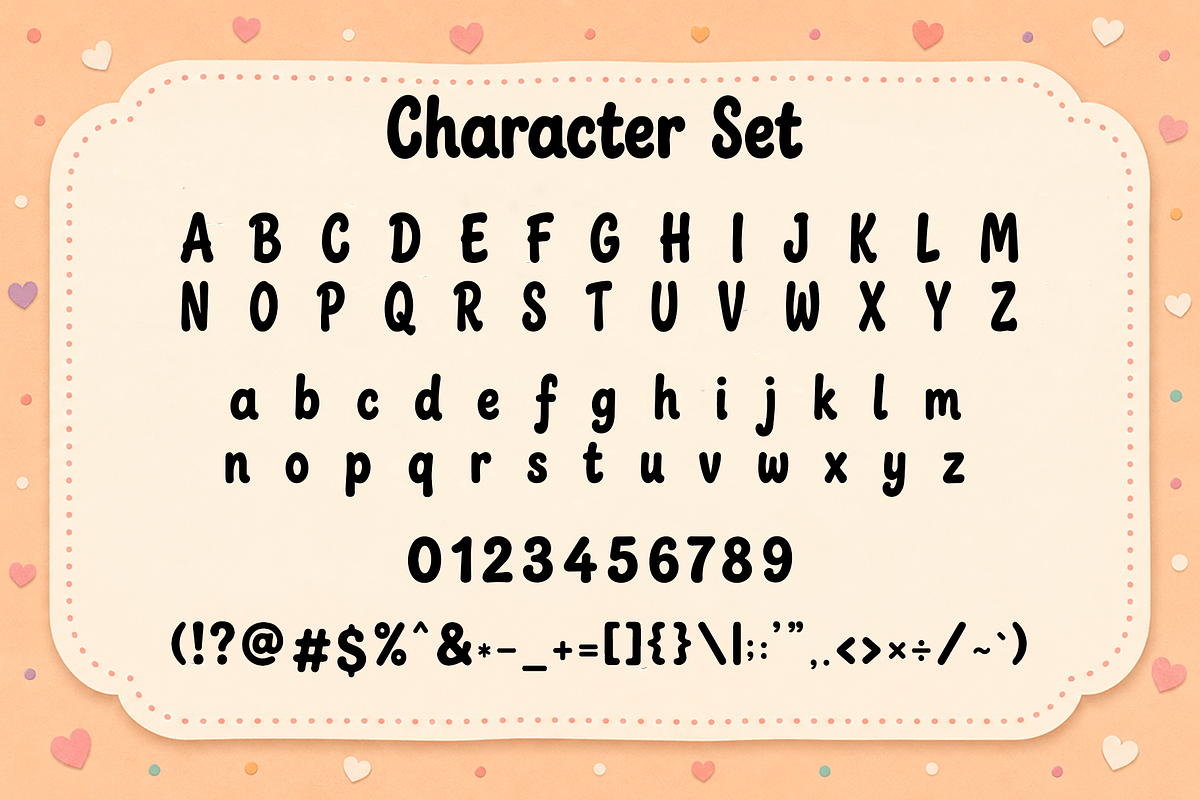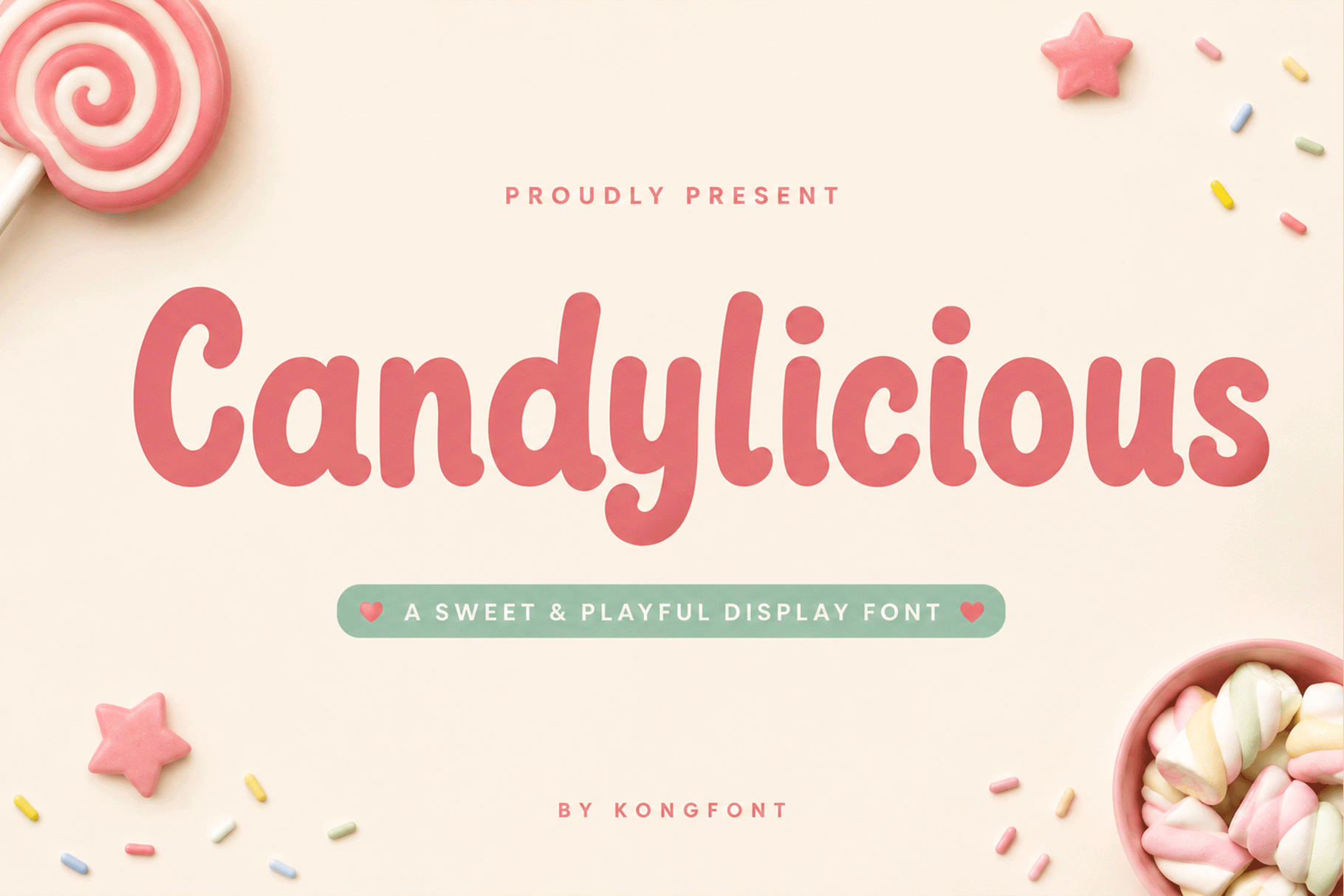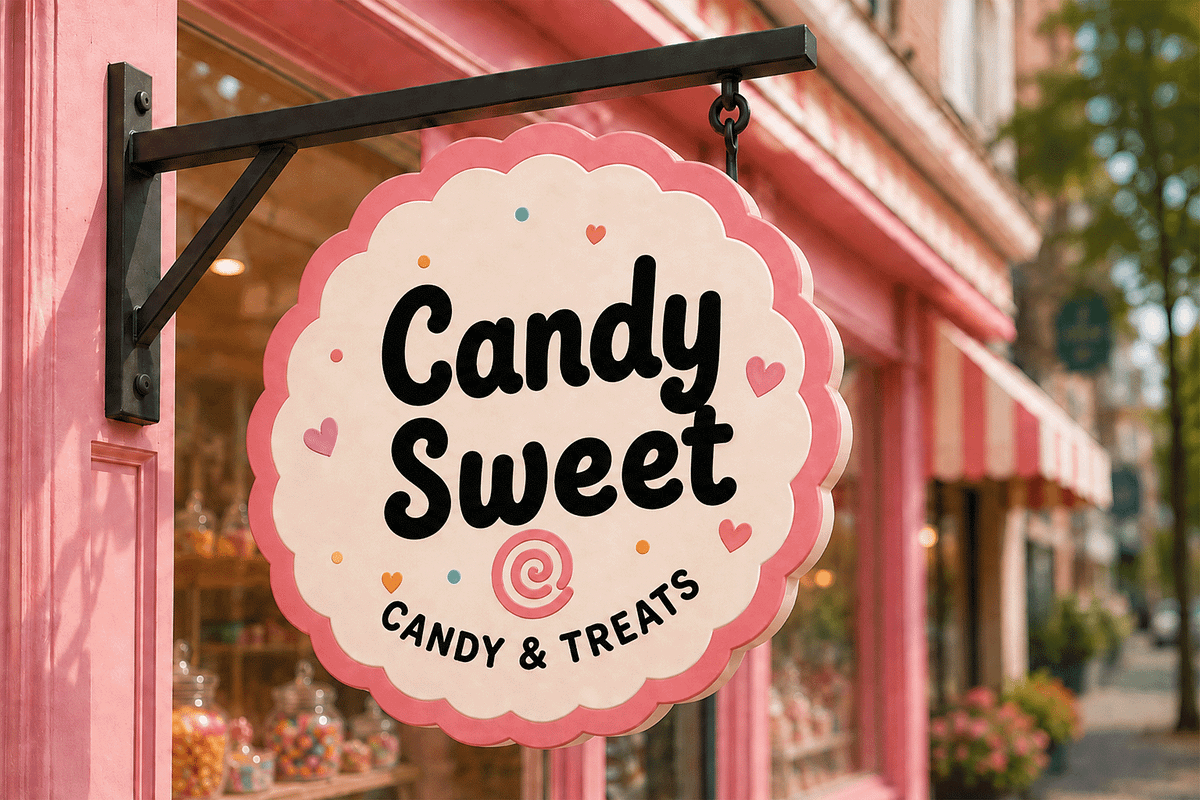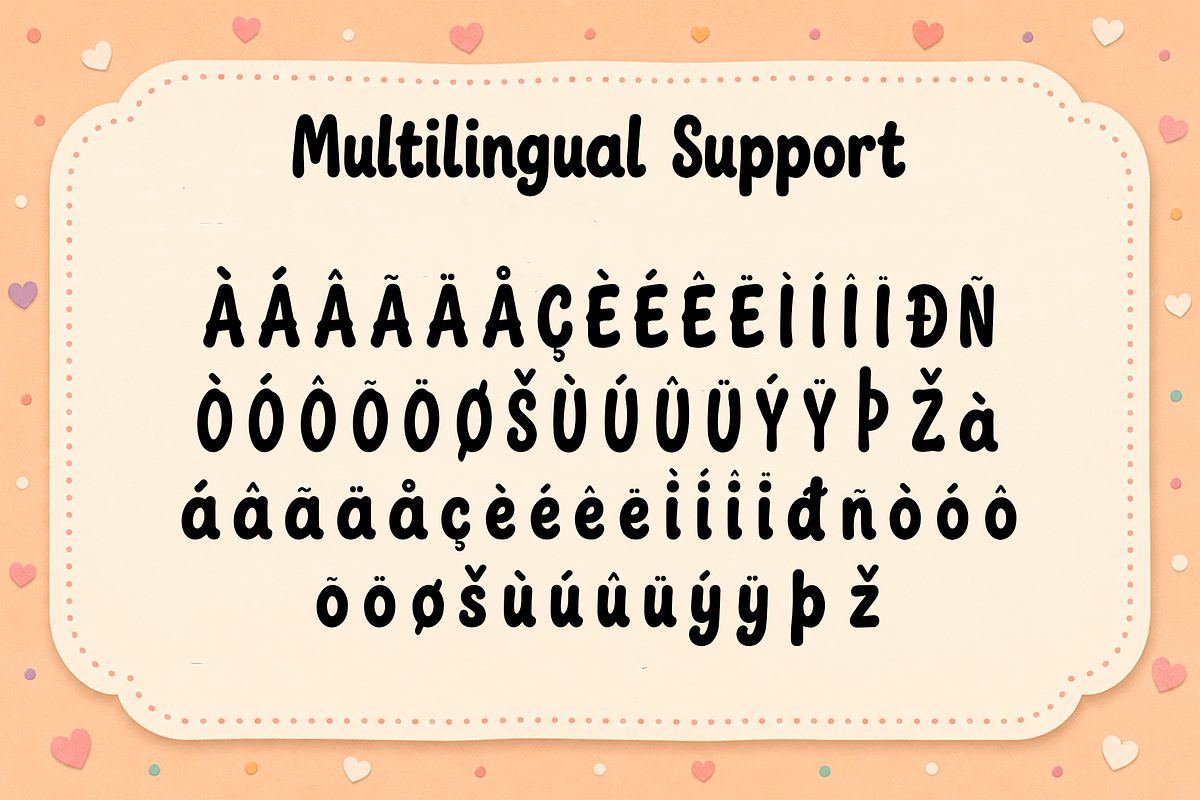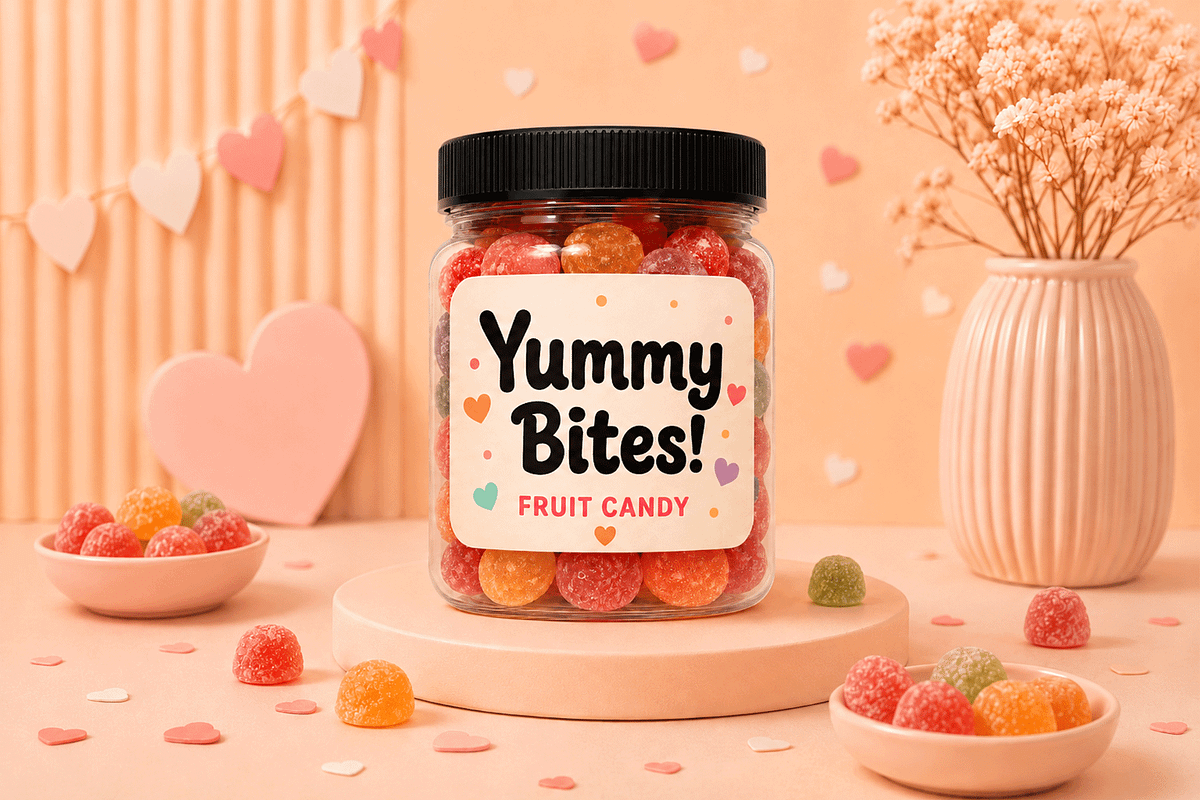
Candylicious - Sweet Display Font
Candylicious - Sweet Playful Display Font
Meet "Candylicious," a sweet and playful display font filled with soft curves, rounded shapes, and a cheerful personality. Inspired by candy shops, colorful treats, and joyful childhood moments, Candylicious brings a warm and friendly character to every word.
Its smooth letterforms and charming proportions make Candylicious perfect for candy packaging, bakery branding, dessert menus, kids’ products, birthday invitations, greeting cards, stickers, social media graphics, posters, product labels, and playful logos. The rounded construction keeps the font approachable while giving headlines a distinctive and memorable appearance.